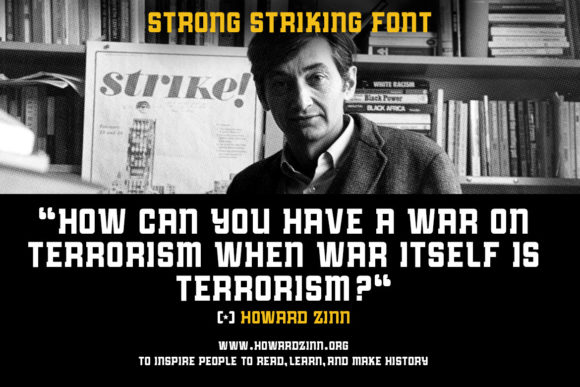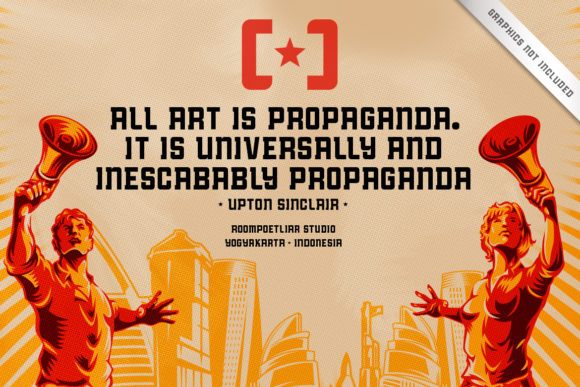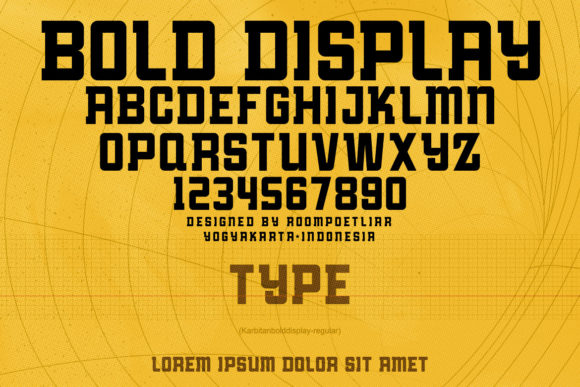
Introduction to Karbitan Font
As a designer, there’s nothing quite like the thrill of creating something from scratch. You’re brainstorming ideas, experimenting with different layouts, and perfecting every detail. But sometimes, all it takes is the right font to bring your creative project to life. This is where Karbitan Font comes in – a cool and bold display font that’s about to become your new design BFF.
Whether you’re working on a high-profile campaign or a personal project, Karbitan Font is a valuable addition to your design resource arsenal. With its sleek, modern design and transparent background, it’s the perfect tool to elevate your creations and make them stand out from the crowd. And the best part? You can download it for free, making it an accessible and high-quality asset for designers of all levels.
Key Features of Karbitan Font
- Unique, modern design that sets it apart from other fonts, perfect for making a statement in creative projects
Honest Review: Karbitan Font
As a designer, I’m always on the lookout for high-quality design resources that can elevate my creative projects. Recently, I stumbled upon the Karbitan Font, and I’m excited to share my thoughts on this versatile font.
- ✨ Unique aesthetic: The Karbitan Font has a distinctive, modern look that sets it apart from other fonts in its class.
- ✨ Clear readability: The font is highly legible, making it perfect for body text or titles in your creative project.
- ⚠️ Limited character set: While the font has a wide range of letters and numbers, it lacks some special characters, which may be a concern for designers who need to include them in their project.
- ⚠️ Transparency: The font’s transparent background can sometimes make it difficult to use with certain design elements.
Overall, I’m impressed with the Karbitan Font’s unique style and versatility. While it may have some limitations, it’s definitely a valuable addition to any designer’s toolkit. If you’re looking for a high-quality font for your creative project, I’d definitely recommend giving the Karbitan Font a try.
The Karbitan Font is a high-quality design resource that offers a transparent background, making it ideal for creative projects. This versatile font can be used in a variety of applications, from digital designs to print materials.
Common Use Cases for Karbitan Font
The Karbitan Font is ideal for a variety of creative projects, including: